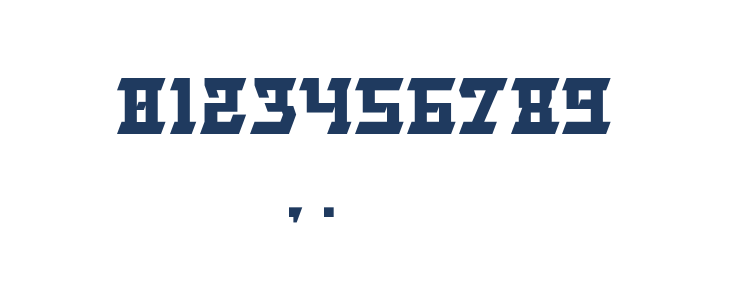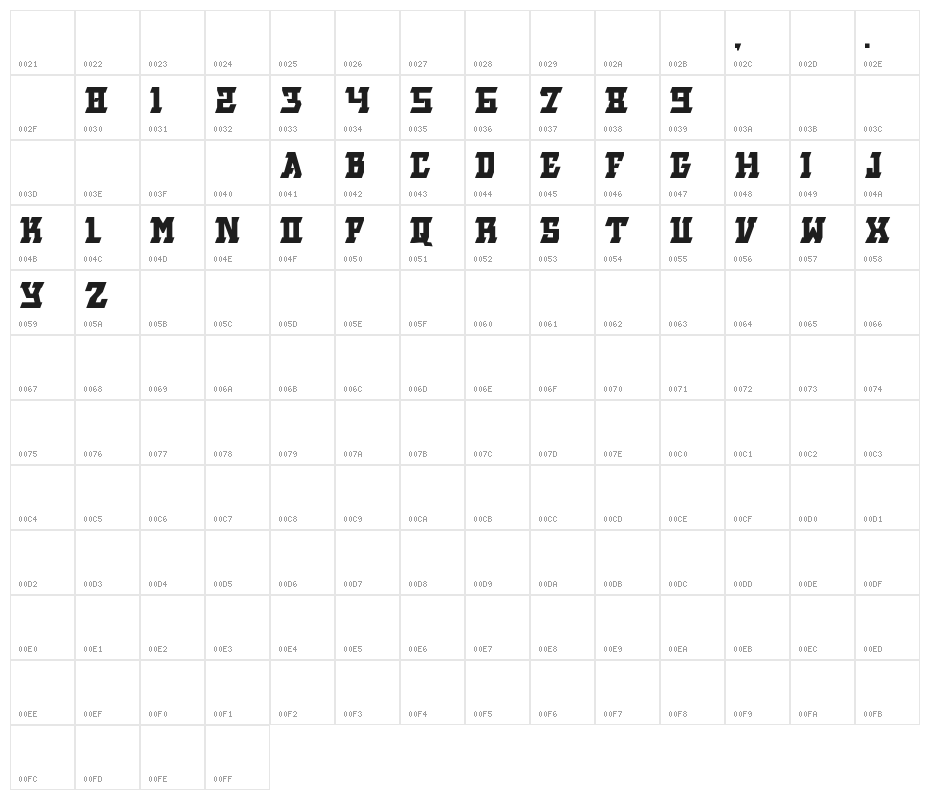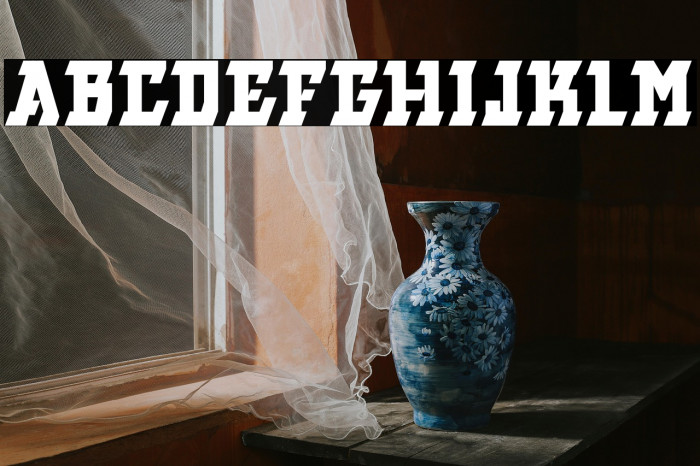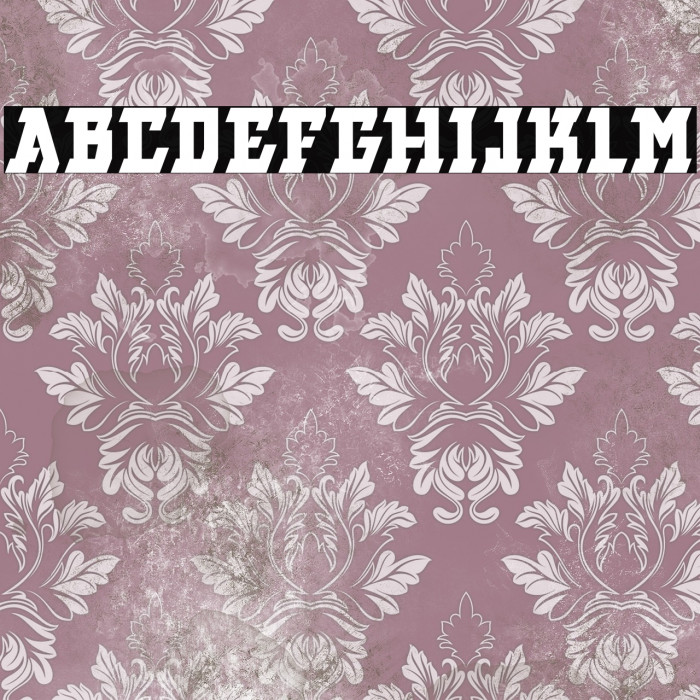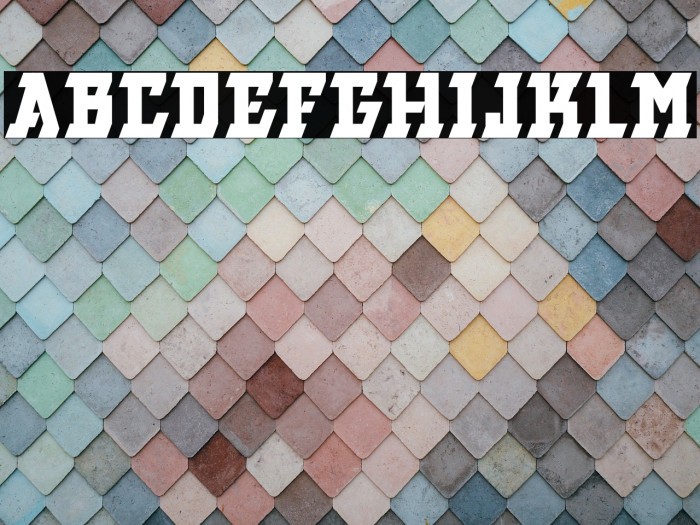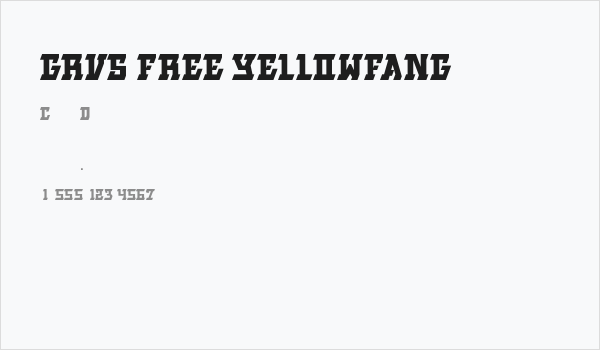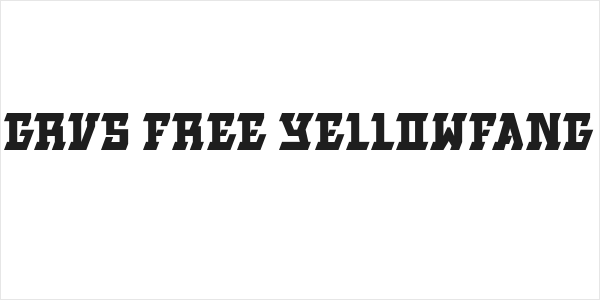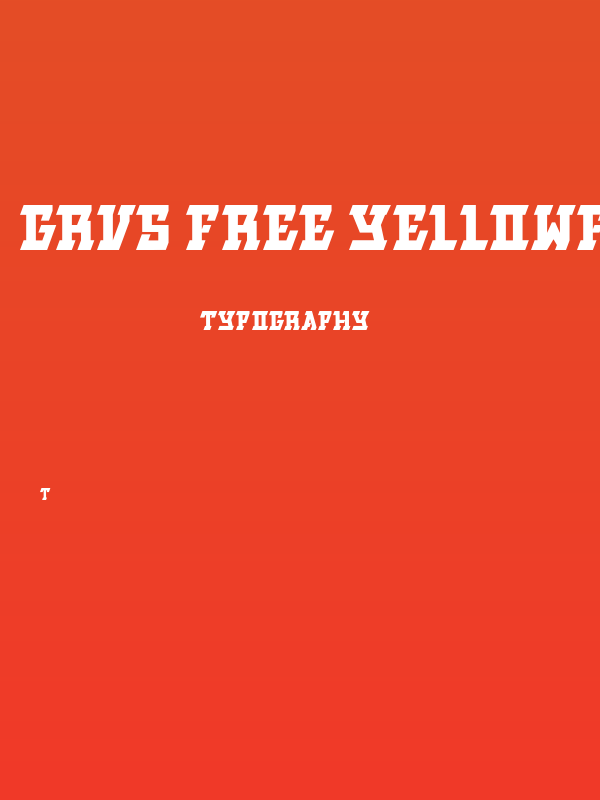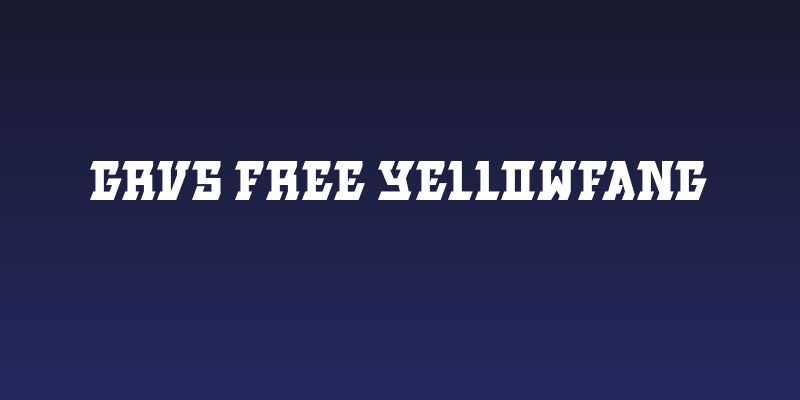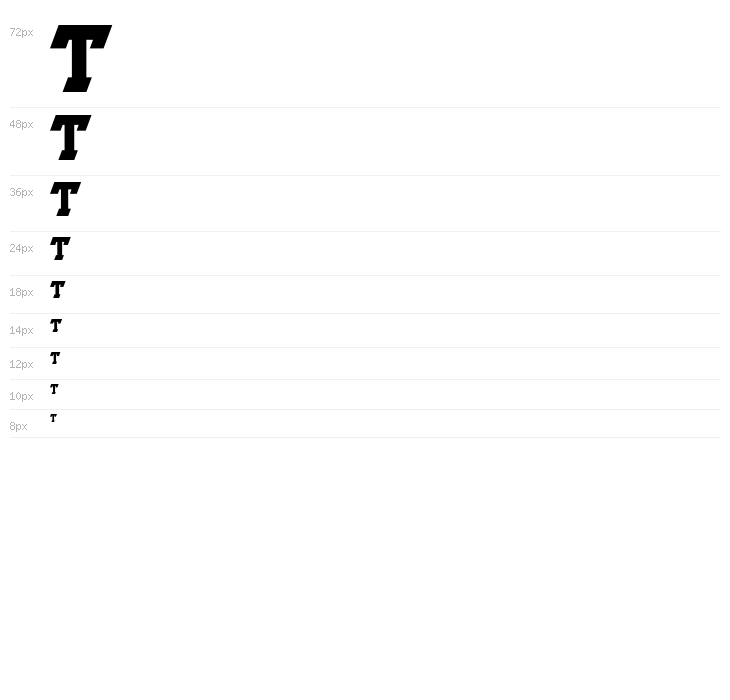
GRVS-FREE-YELLOWFANG Font
GRVS-FREE-YELLOWFANG Description
This font features a bold and dynamic design with a strong presence. The characters are crafted with sharp, angular edges and a distinct geometric style, giving it a modern and aggressive look. The uppercase letters are particularly striking, with a uniform height and width that create a cohesive appearance. The numbers and special characters maintain the same boldness, ensuring consistency across all elements. This font is ideal for projects that require a strong visual impact and a contemporary feel.
| Proposed Projects | Ideal for sports branding, posters, video game titles, and any project needing a bold statement. |